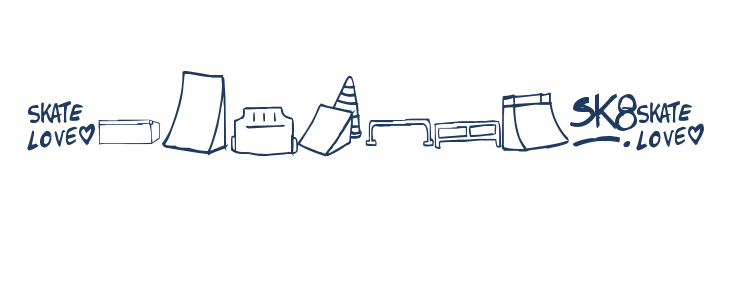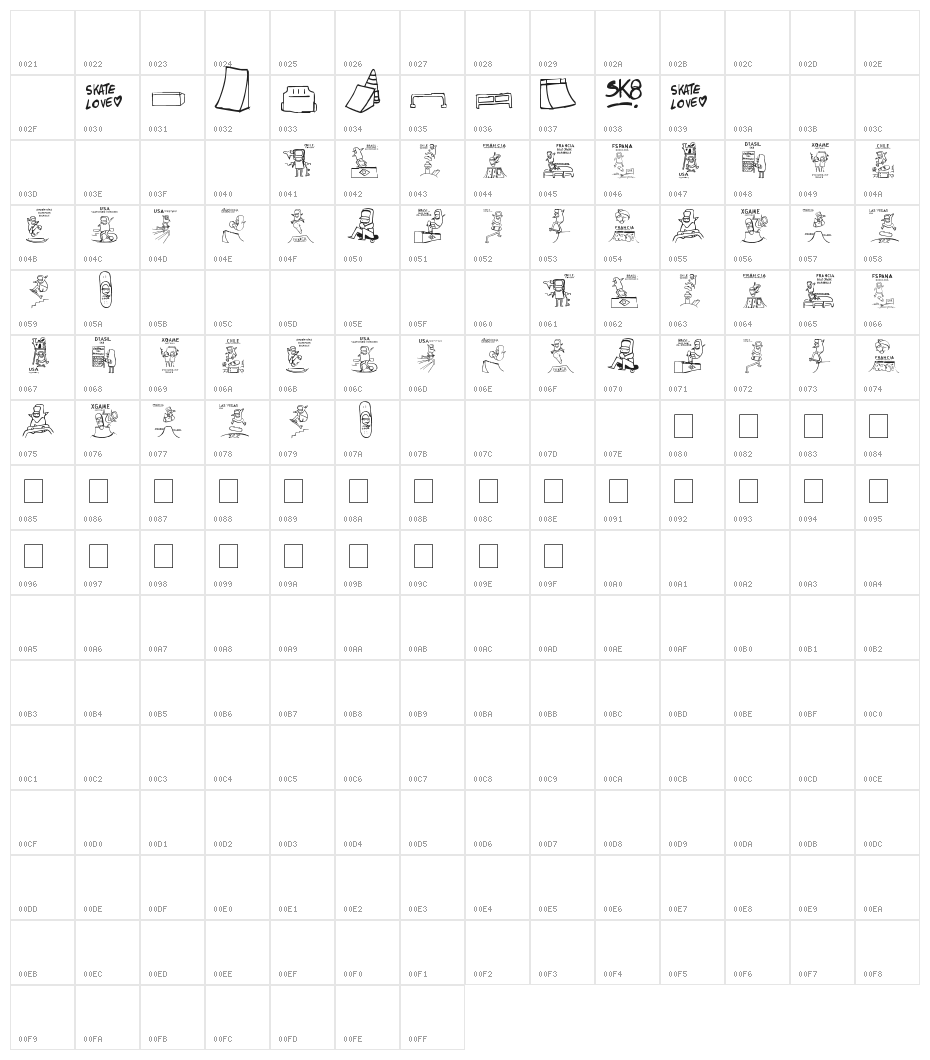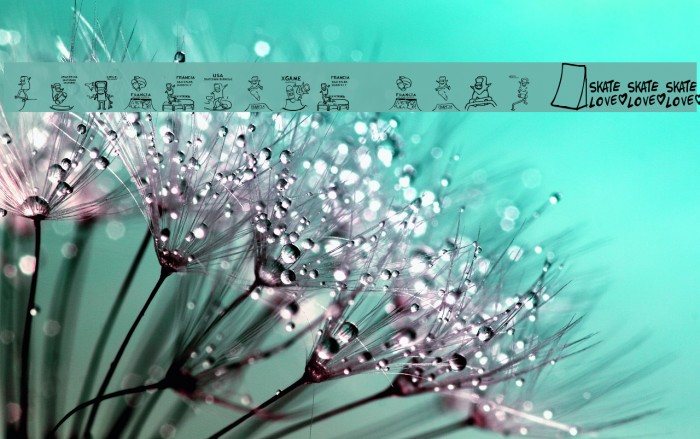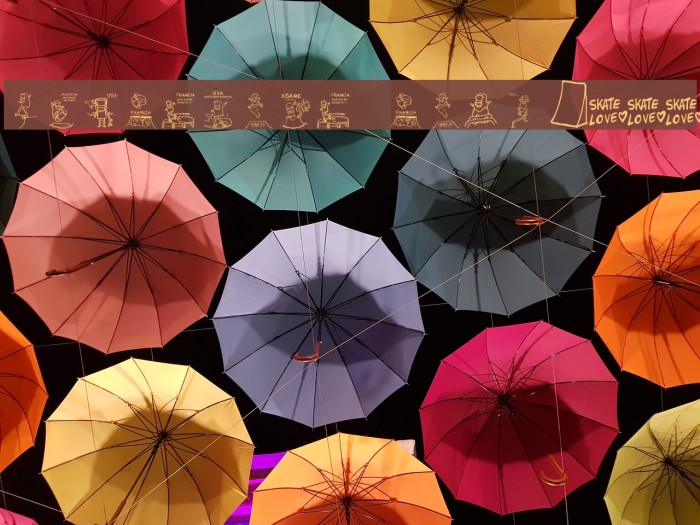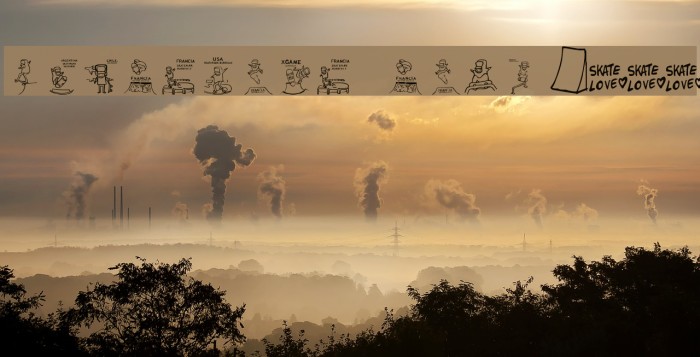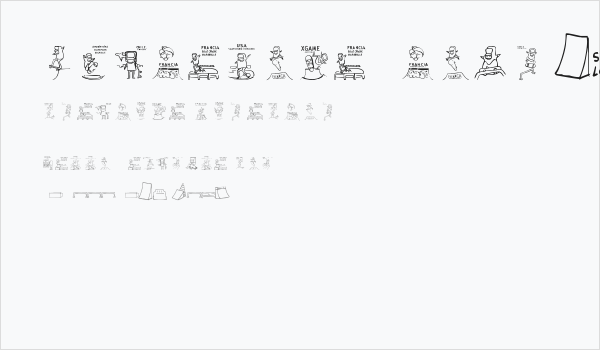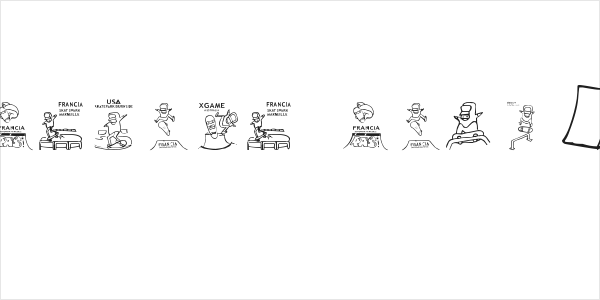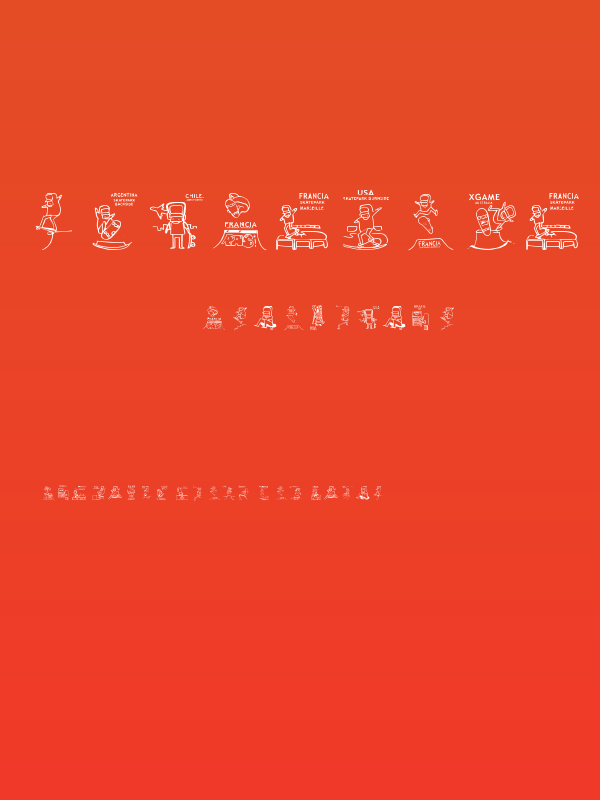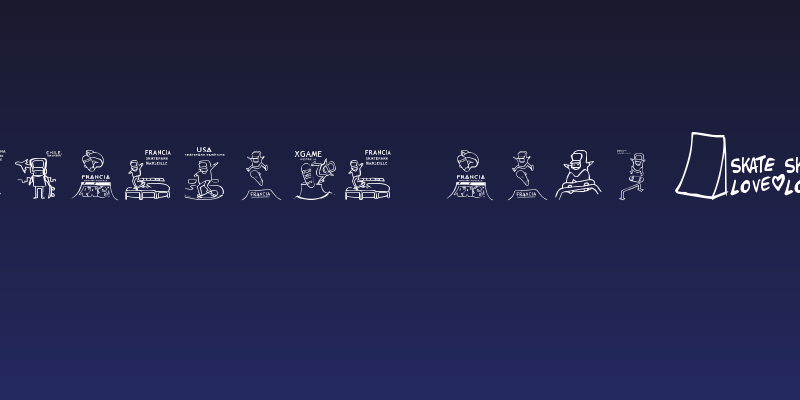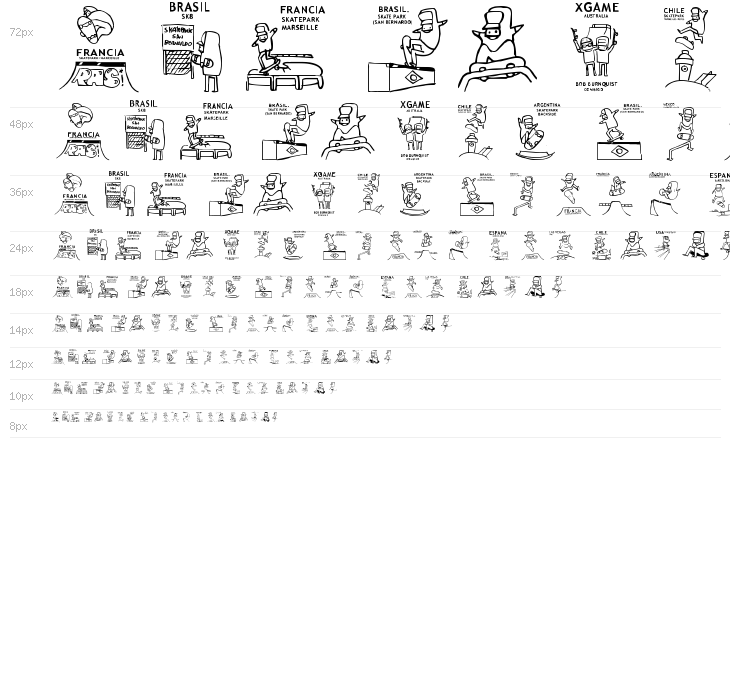
skatelove [ tour 2009] Font
skatelove [ tour 2009] Description
A playful, hand-drawn font with irregular, casual strokes and a youthful, energetic vibe. The characters are slightly uneven, mimicking marker or brush pen writing, and include whimsical heart and skate-themed doodles.
| Overall Style | Playful, Youthful, Urban, Decorative |
| Use Case | Logos, Headlines, Posters, Merchandise |
| Proposed Projects | Youth event posters, skateboarding brands, streetwear logos, social media graphics, informal invitations. |